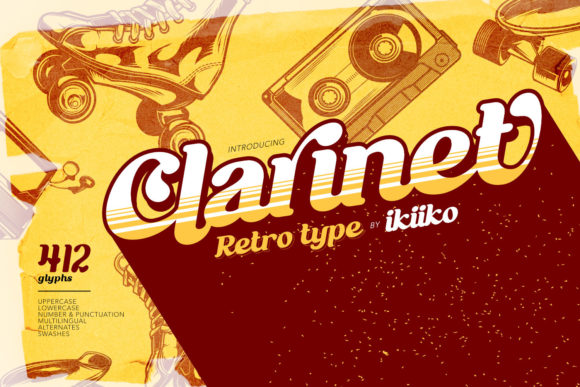
Introducing Clarinet Font - the perfect font for those looking to add a touch of vintage to their designs! This stunning serif font, created by ikiiko, is the best font for aliasing display and has been inspired by retro fonts from the 60s era. With bold serifs and simple vintage strokes, Clarinet exudes a sense of firmness and sturdiness while remaining flexible and adaptable.
Whether you're looking to create a vintage logo, packaging, magazine cover, poster & flyer design, wedding invitation, or simply add a stylish text overlay to any background image, Clarinet is the font for you! The PUA encoding allows for easy access to all glyphs and swashes, ensuring that your designs will stand out from the crowd.
But Clarinet is more than just a font - it's an emotion. It's nostalgia, it's warmth, it's comfort. It's the feeling of curling up with a good book on a rainy day, or sipping coffee in a cozy café on a lazy afternoon. Clarinet brings those emotions to life in your designs, capturing the essence of a bygone era and transporting your audience to a simpler time.